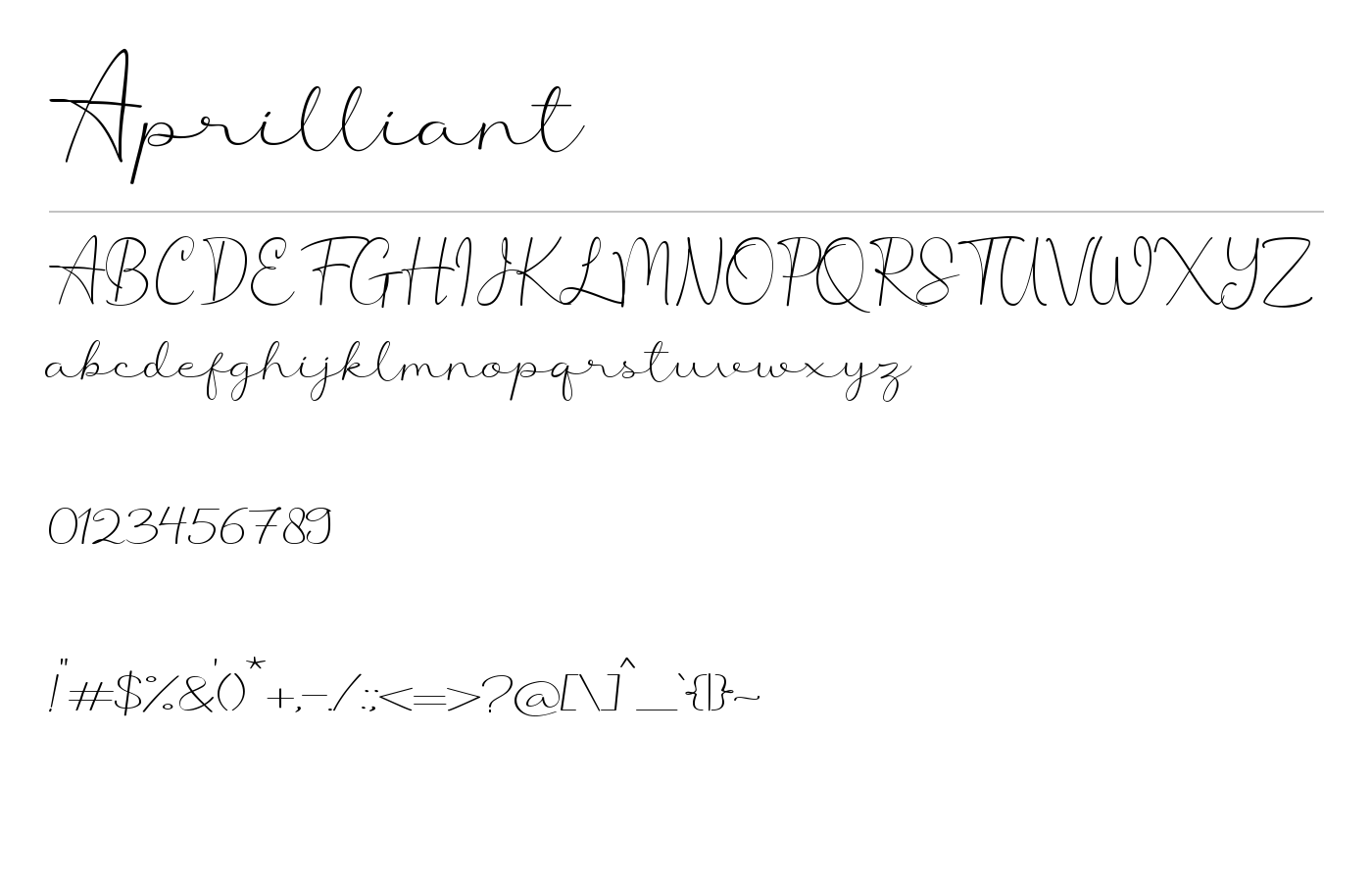
Aprilliant is a delicate, elegant handwritten script font characterized by its thin, flowing strokes and airy letterforms. Its light weight and graceful curves give it a refined, playful personality, perfect for adding a personal, stylish touch to invitations, branding, or feminine design projects. This font works beautifully in headlines and decorative text where a sophisticated yet approachable feel is desired.
Aprilliant Font
About Aprilliant Font